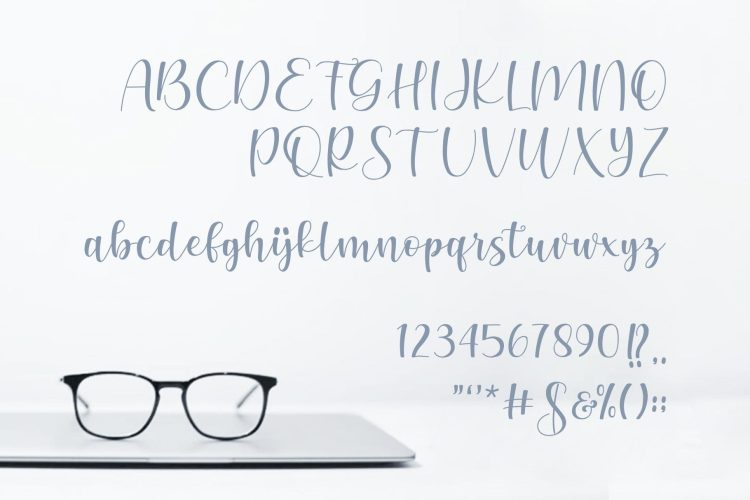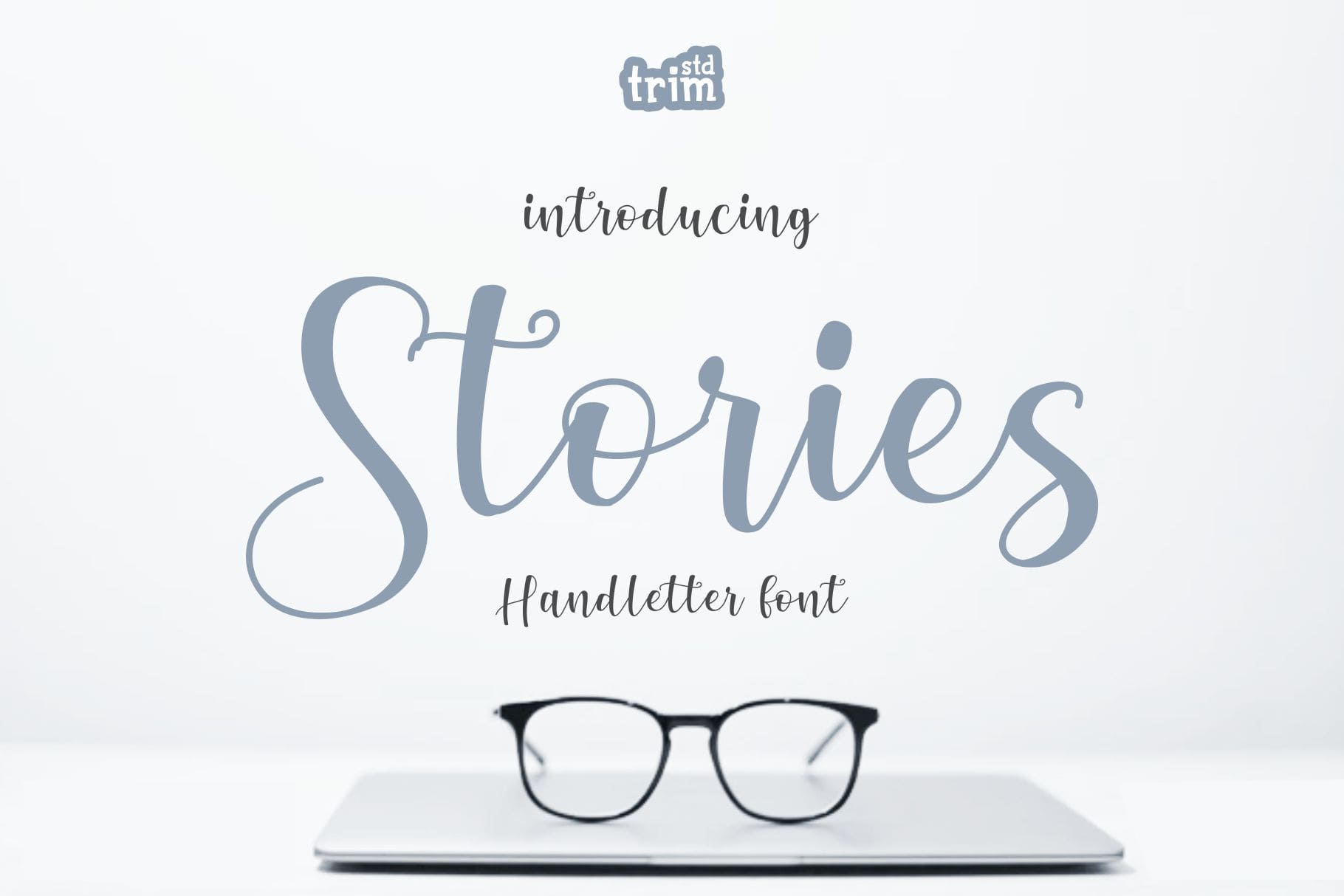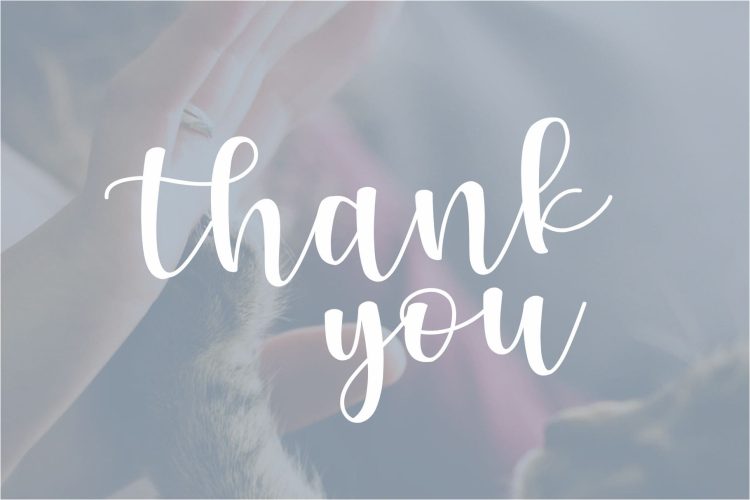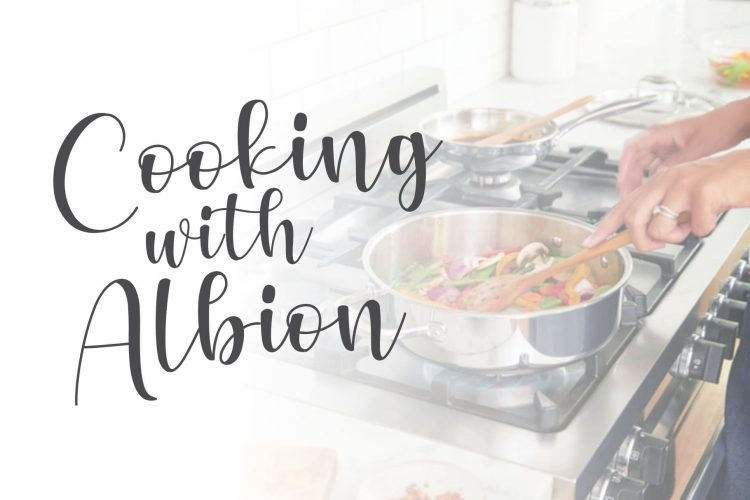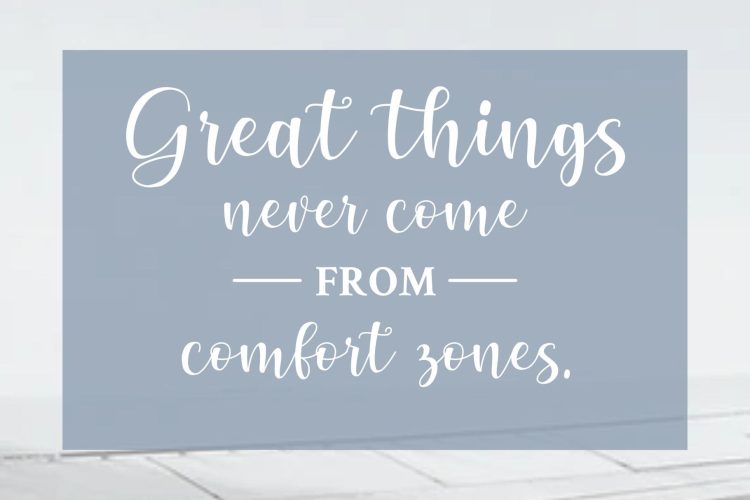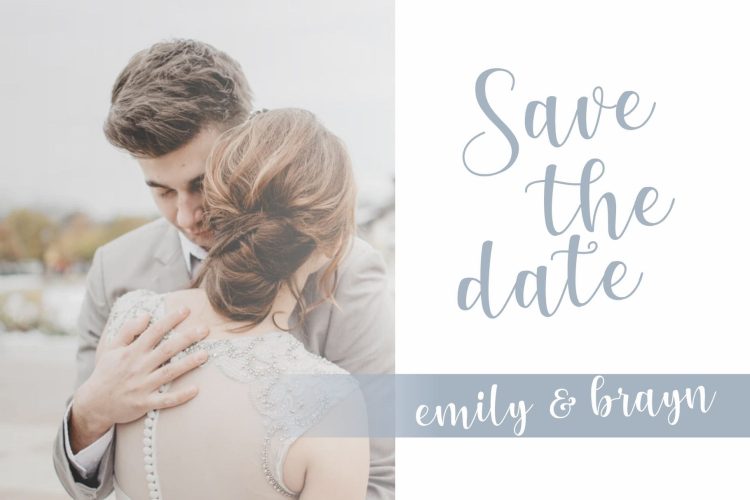
Stories is a sweet, soft, hand-lettered calligraphy font. Be inspired by its authentic feel and use it to create gorgeous wedding invitations, beautiful stationery art, eye-catching social media posts, and cute greeting cards.